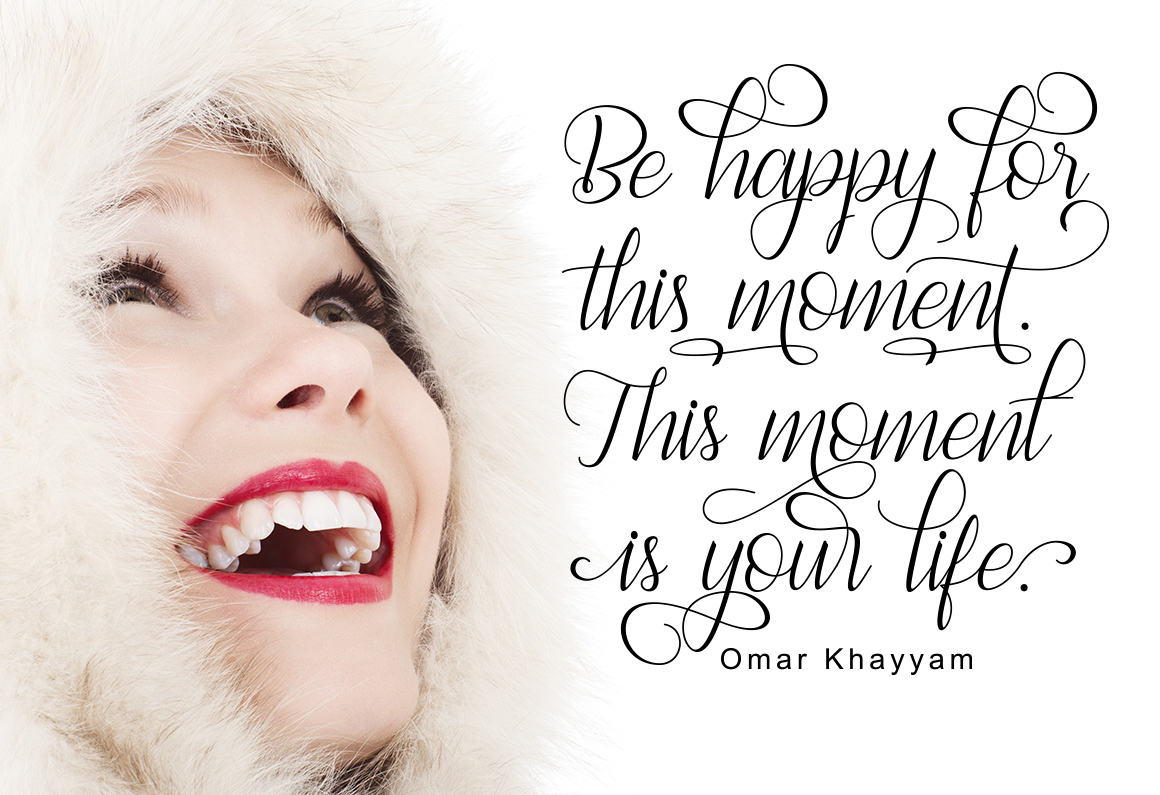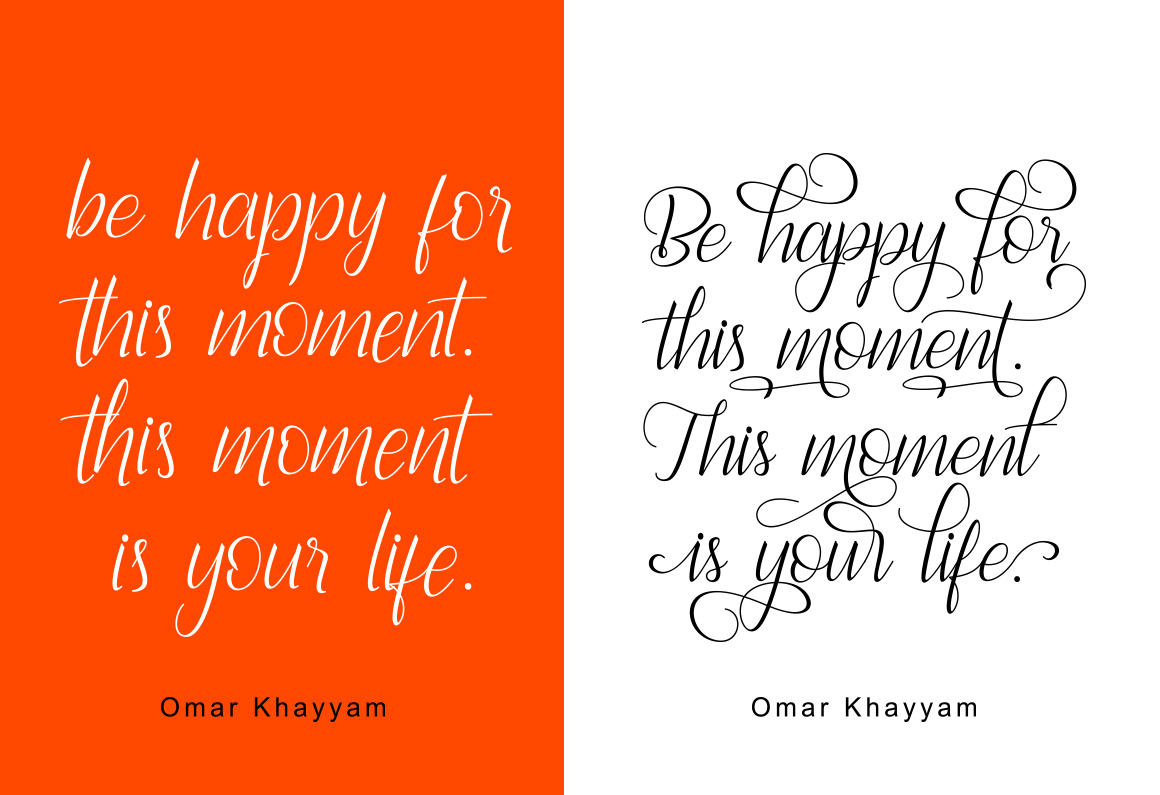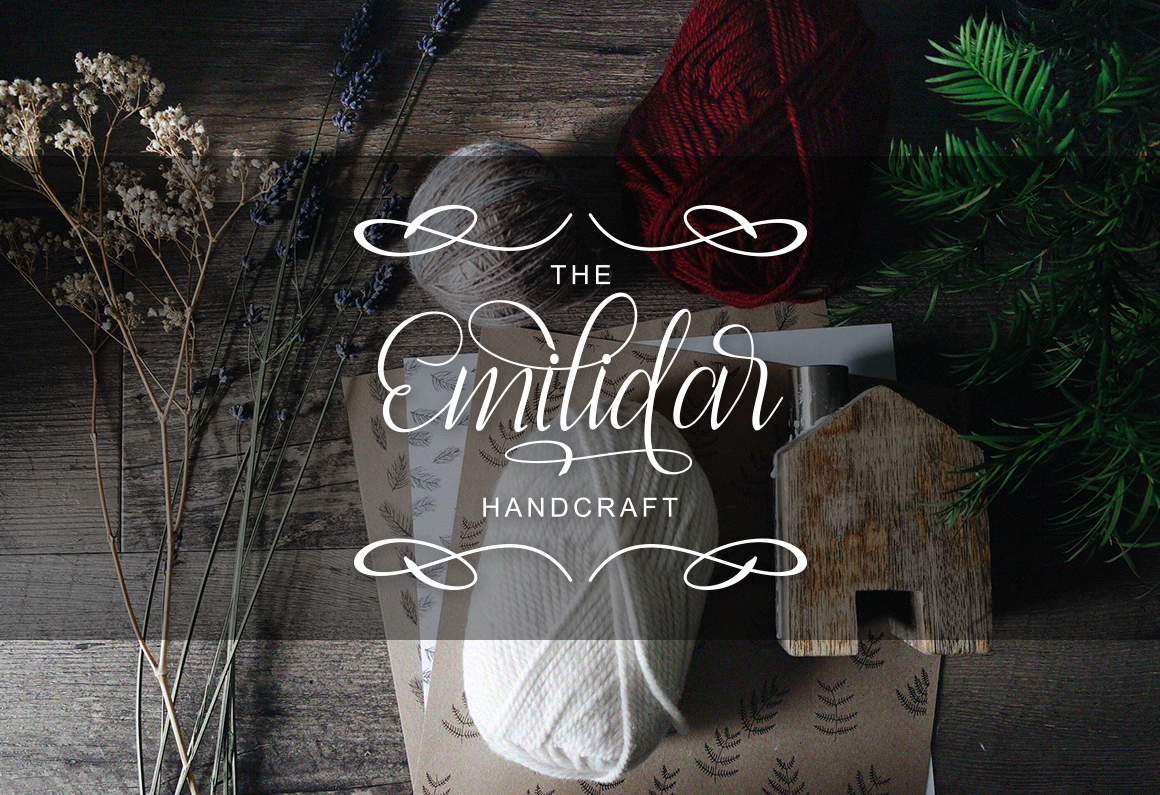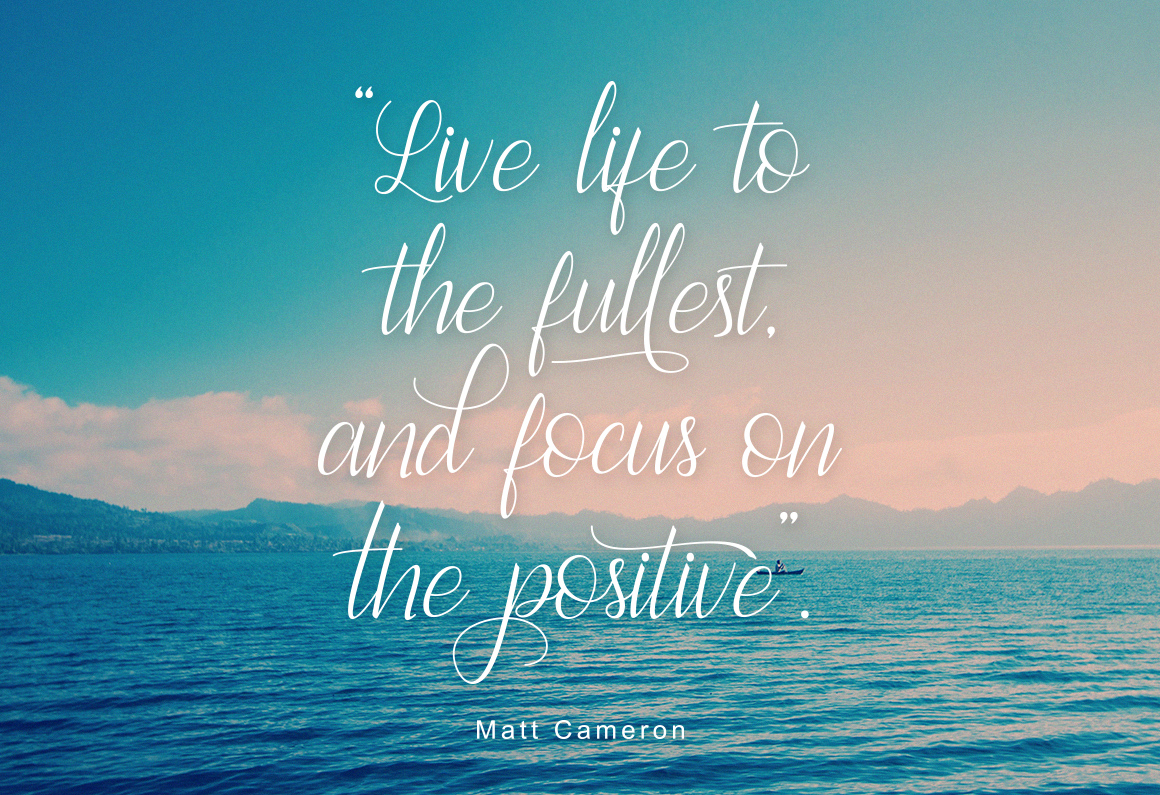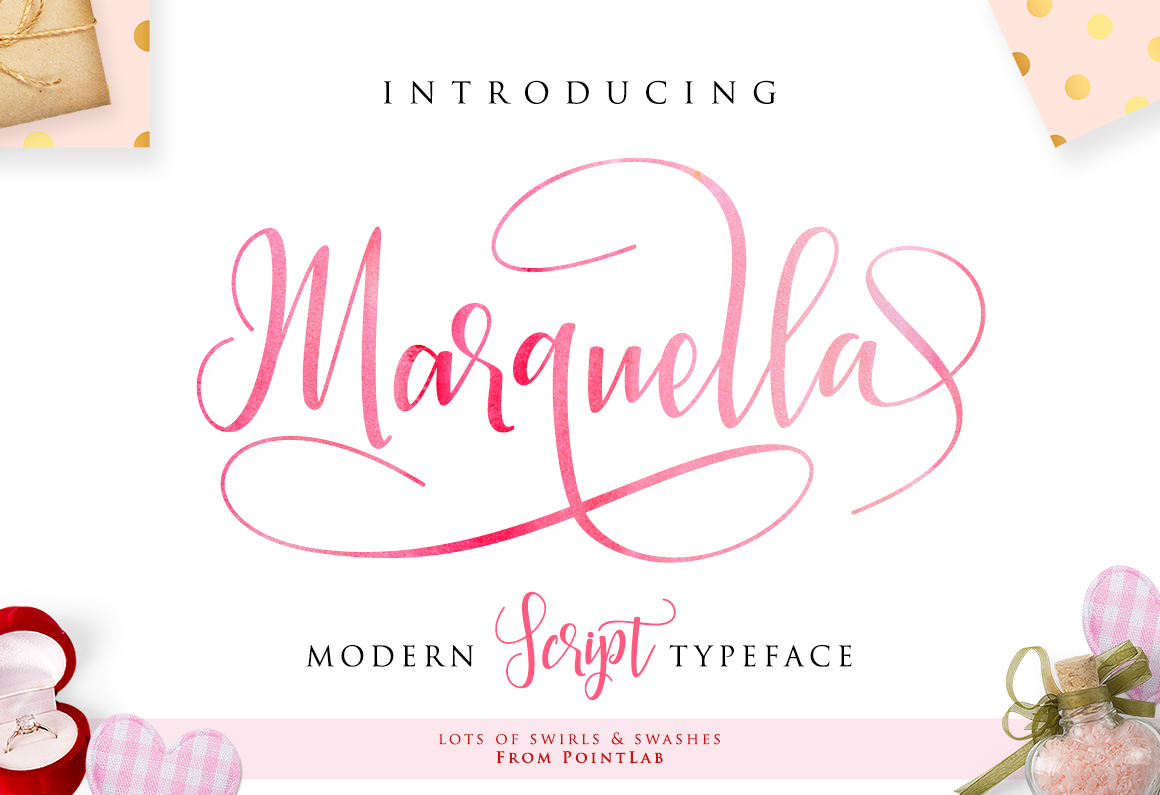
Introduction to Marquella Font
Imagine you’re working on a creative project, and you need the perfect script font to give it that extra touch of elegance. The words flow beautifully on the page, but something’s missing – a dash of uniqueness, a hint of sophistication. That’s where the Marquella Font comes in, a beautiful script font that seamlessly blends classic and modern typographic sensibilities.
With its stunning alternate glyphs and beautiful swirls, Marquella Font is a true design resource that can elevate any project. Whether you’re working on a high-quality brochure, a website, or a creative publication, this font is sure to make your work stand out. Plus, with a transparent background and a free download available, you can experiment with Marquella Font without any restrictions.
As a designer, having access to high-quality fonts like Marquella Font can be a game-changer. It’s a valuable addition to your design toolkit, allowing you to create unique and captivating designs that reflect your personal style.
Key Features of Marquella Font
- High-quality, elegant script font with a beautiful, cursive design perfect for creative projects.
- Transparent background, allowing for seamless integration with any design or background image.
- Unique, hand-drawn design elements and subtle flourishes add a touch of sophistication and elegance to any creative project.
- Perfect for use in design projects such as invitations, greeting cards, logos, and other design resources.
Honest Review: Marquella Font
I recently had the chance to work with the Marquella Font, and I must say it’s been a game-changer for my creative projects. The high quality of this font is immediately noticeable, and it’s perfect for designers looking to add a touch of elegance to their work.
- May not be suitable for bold or loud designs
- Some characters may be difficult to read at small font sizes
Overall, I’m really impressed with the Marquella Font. It’s a great addition to any designer’s toolkit, and I highly recommend it for anyone looking for a high-quality, free font to use in their creative projects.
Tips for Getting the Most Out of Marquella Font
For the best results, use Marquella Font on a transparent background to create a clean and modern design. You can also experiment with different font sizes and styles to add visual interest to your creative project.
Marquella Font is a versatile design resource that can be used in various creative projects, including logos, branding materials, and marketing campaigns. Its high-quality design makes it perfect for both personal and professional projects.
Is the Marquella Font suitable for use on a transparent background?
Yes, the Marquella Font is designed to work well on a transparent background. Its high-quality design ensures that the text remains legible and visually appealing, even when placed over a transparent or semi-transparent background. This makes it an ideal choice for creative projects that require a clean and modern look.